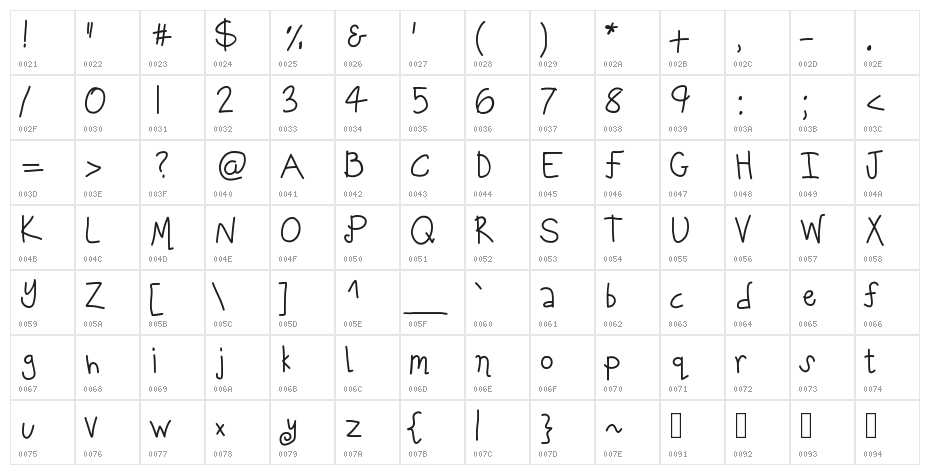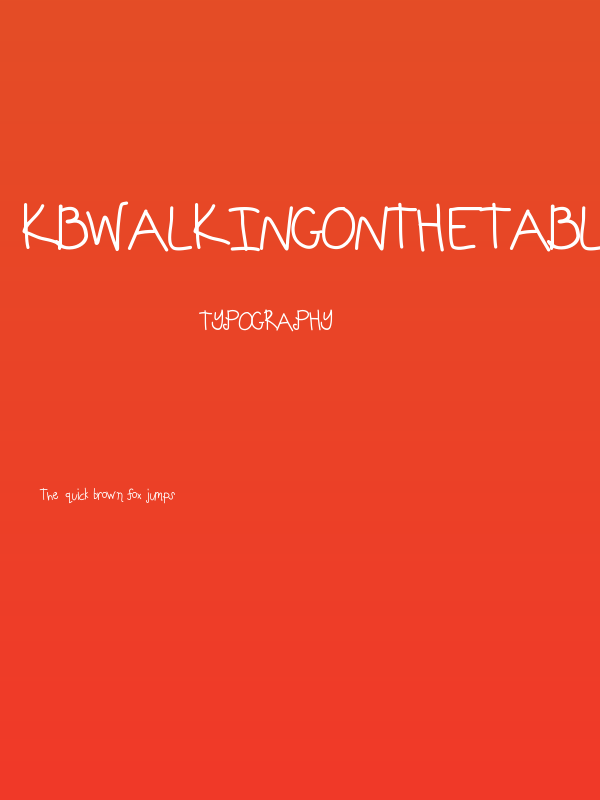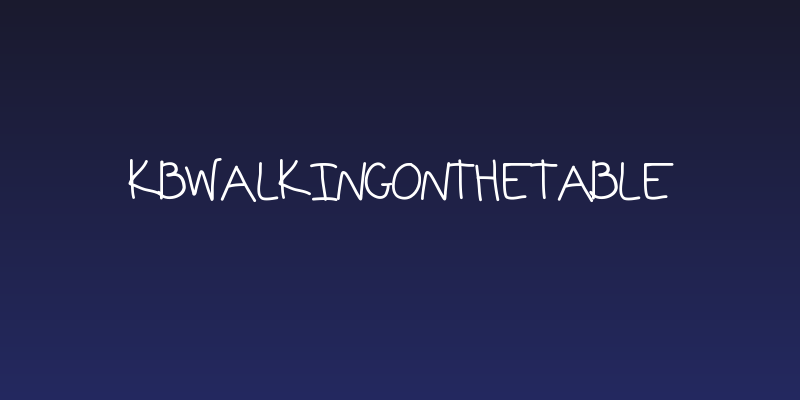
KBWalkingontheTable Font
KBWalkingontheTable Description
This font exhibits a playful and casual handwritten style, characterized by its irregular and organic letterforms. The strokes are uneven, giving it a lively and informal appearance. The uppercase and lowercase letters maintain a consistent style, with rounded edges and varying stroke thickness that adds to its charm. The numbers and special characters follow the same whimsical design, making it suitable for projects that require a personal touch. The overall look is approachable and friendly, perfect for conveying warmth and creativity.
| Overall Style | Casual, Playful |
| Use Case | Headlines, Informal text, Creative projects |
| Proposed Projects | Ideal for greeting cards, children's books, personal blogs, and creative branding projects. |